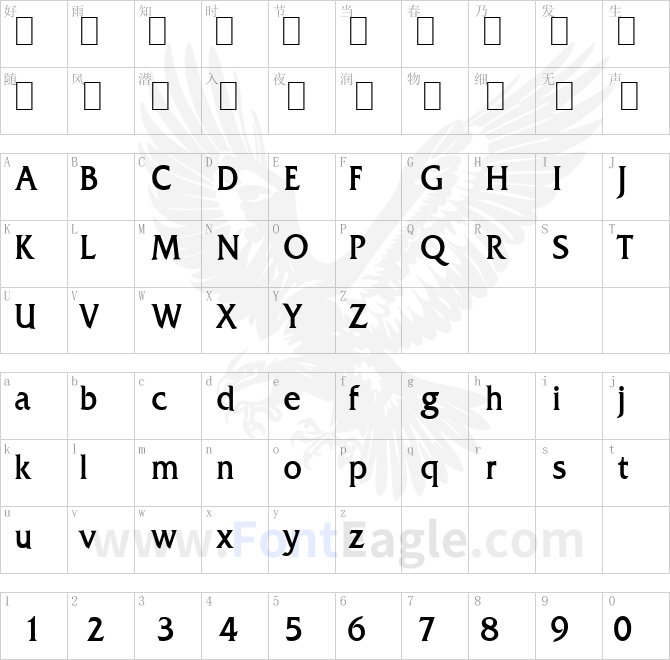
- Font name:Franco-Condensed
- Font Subfamily ID:Alts:Franco-Condensed Bold
- Font Full Name:Franco-Condensed Bold
- Postscript:Franco-Condensed-Bold